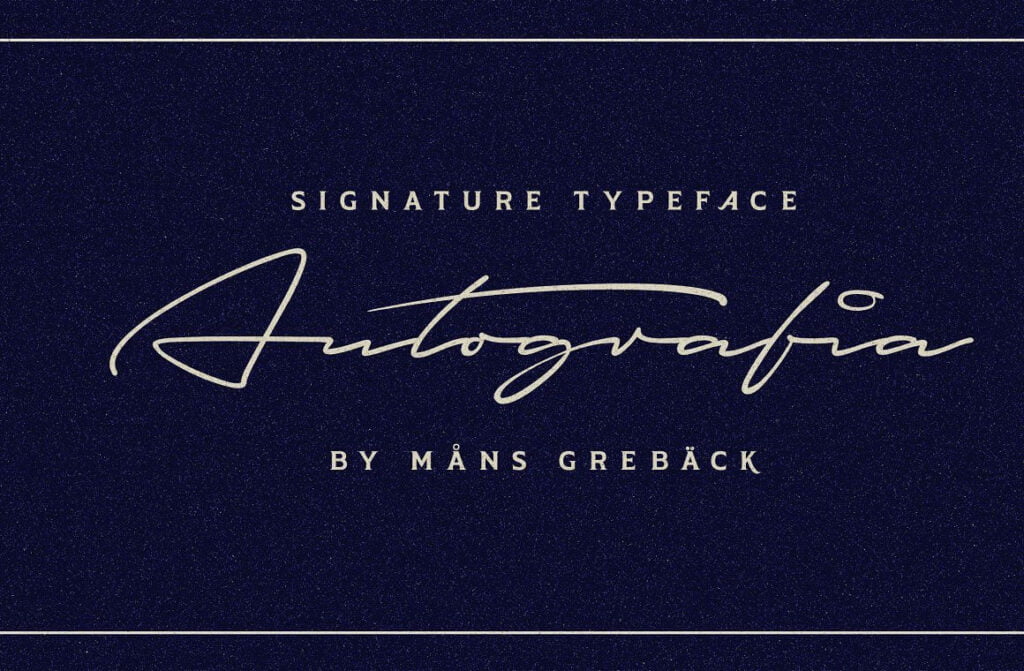
Autografia Font
Autografia Font is a high-quality signature typeface. The typeface family is provided in five weights: Thin, Light, Medium, Bold and Black. The weights compliment each other and makes for a truly formative script typeface, to be used in any context and with the right assertion.
Autografia’s large, round capital letters contrast against its short and streamlined lower case, resulting in a characteristic autograph style.